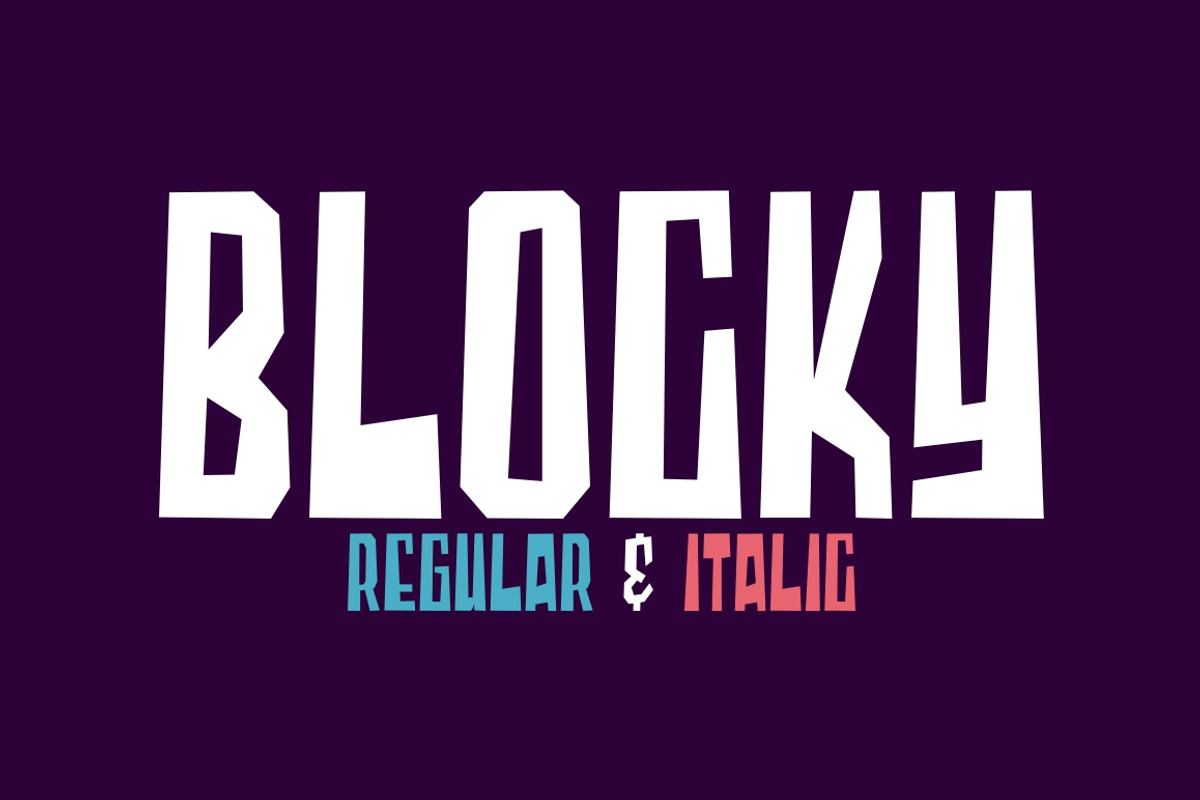
The Blocky - 2 Styled Font Free Download is a bold and modern typeface designed to make a statement. Featuring two unique styles, this font is perfect for creating eye-catching headlines, logos, and posters. Its strong, geometric shapes provide a dynamic and contemporary look, making it an excellent choice for projects that require a modern, edgy feel.
Blocky - 2 Styled Font Free Download is the perfect addition to any designer's toolkit. With its versatile styling and bold presence, it's ideal for branding, advertising, and creative projects that need to stand out. Download this impressive font today and bring your designs to life!